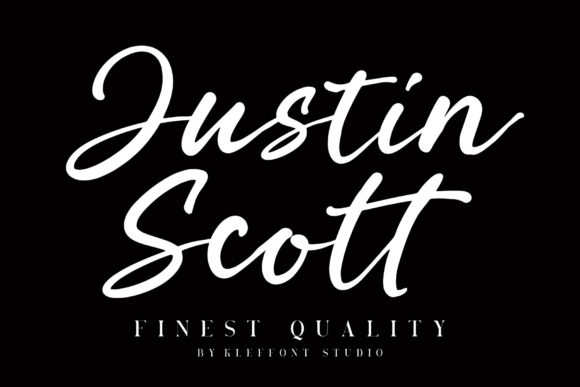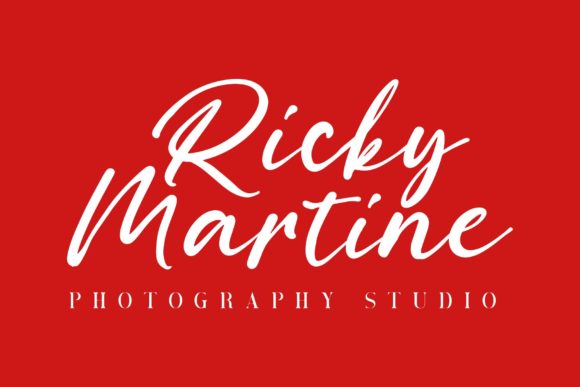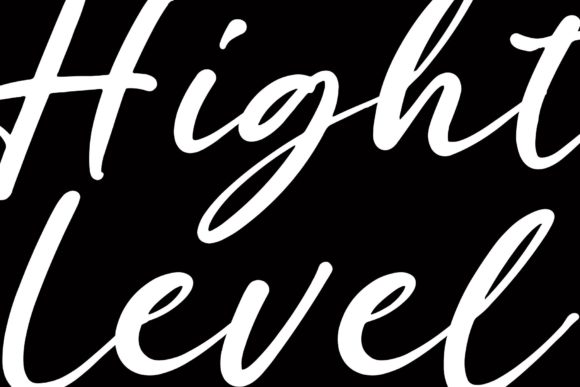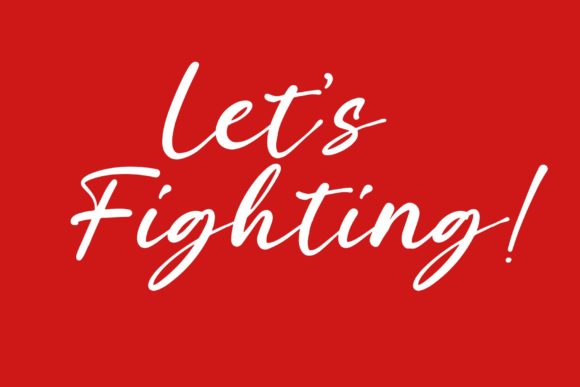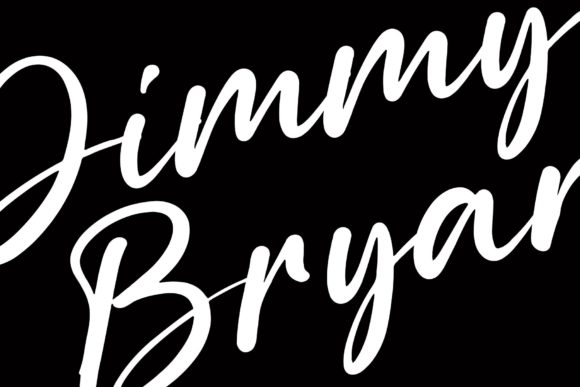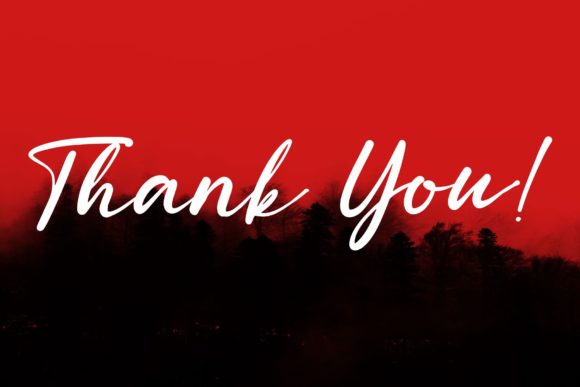
Introducing Callina Font: Elevate Your Designs with Elegance and Flair
Are you on the hunt for a font that exudes sophistication, whimsy, and a touch of elegance? Look no further than Callina Font, a delicate, elegant, and flowing handwritten font that’s sure to breathe life into your creative projects. With its beautiful and well-balanced characters, Callina Font is the perfect addition to a wide range of designs, from modern branding to vintage-inspired crafts.
The Characteristics of Callina Font
So, what makes Callina Font so special? For starters, its delicate and flowing nature gives it a distinctly elegant feel that’s perfect for designs that require a touch of sophistication. The characters are beautifully crafted, with a focus on balance and harmony that ensures the font looks great in a variety of contexts. Whether you’re using Callina Font for a logo, a heading, or body text, it’s sure to add a level of refinement and polish to your design.
One of the standout features of Callina Font is its incredible versatility. Because of its elegant and flowing nature, it can be paired with a wide range of design styles, from modern and minimalist to vintage and ornate. Whether you’re creating a brand identity, designing a product label, or crafting a handmade card, Callina Font is the perfect choice. Its beautiful characters and flowing lines add a touch of whimsy and personality to any design, making it sure to capture the attention of your audience.
Why Designers and Crafters Love Callina Font
So, why do designers and crafters love Callina Font so much? For one, its unique and elegant style sets it apart from more traditional fonts, giving designers and crafters a chance to add a touch of personality to their work. Additionally, Callina Font is incredibly easy to read, making it perfect for body text and other applications where legibility is key. Plus, its flowing lines and delicate nature make it a joy to use in creative projects, adding a level of whimsy and flair that’s hard to achieve with more traditional fonts.
How to Use Callina Font in Your Designs
Ready to add Callina Font to your design toolkit? Here are a few ideas to get you started:
- Branding and logos: Use Callina Font to create a unique and memorable brand identity that sets you apart from the competition.
- Stationery and cards: Add a touch of elegance and whimsy to your handmade cards and stationery with Callina Font.
- Product labels: Use Callina Font to create beautiful and eye-catching product labels that showcase your brand’s personality.
- Web design: Add a touch of sophistication and elegance to your website with Callina Font, perfect for headings, titles, and other design elements.
Tips and Tricks for Working with Callina Font
Here are a few tips and tricks to help you get the most out of Callina Font:
- Experiment with pairings: Callina Font pairs beautifully with a wide range of fonts and design styles, so don’t be afraid to experiment and find your favorite combinations.
- Play with sizes: Callina Font looks great in a variety of sizes, from large headings to smaller body text. Experiment with different sizes to find the perfect fit for your design.
- Add some flair: Callina Font is all about elegance and whimsy, so don’t be afraid to add some flair to your design with swashes, flourishes, and other decorative elements.
In conclusion, Callina Font is a beautiful and elegant handwritten font that’s perfect for designers and crafters looking to add a touch of sophistication and whimsy to their creative projects. With its delicate and flowing nature, beautiful characters, and incredible versatility, Callina Font is sure to become a staple in your design toolkit. So why wait? Download Callina Font today and see how it can elevate your designs to the next level!